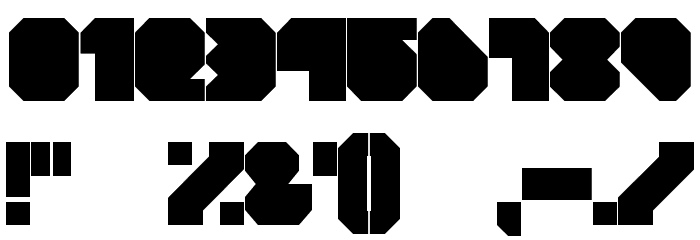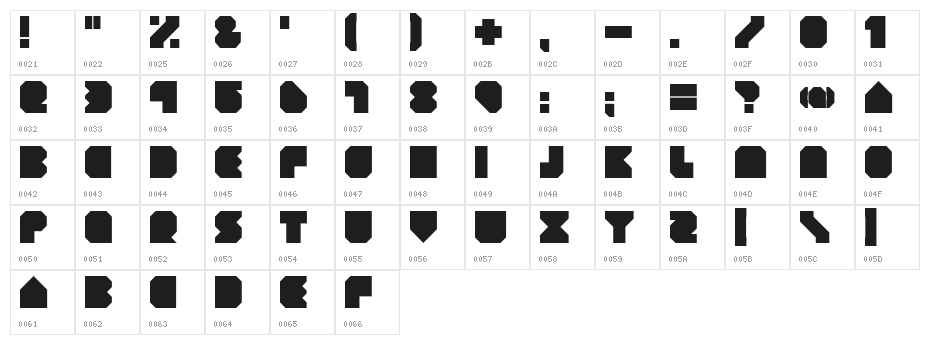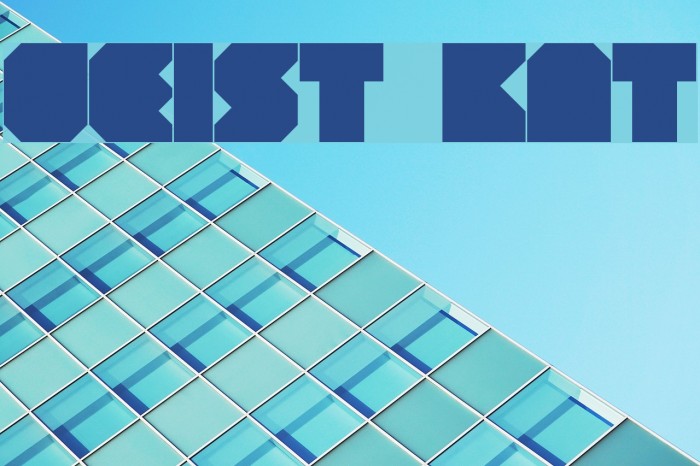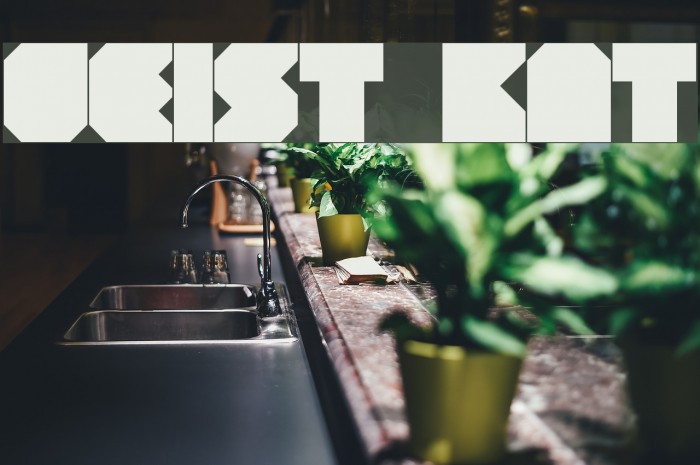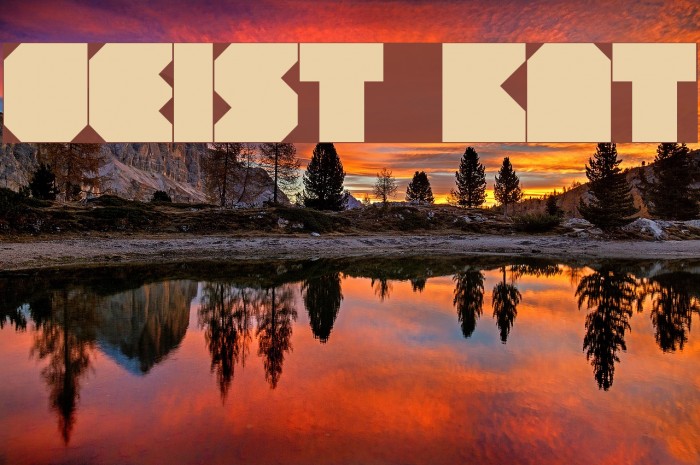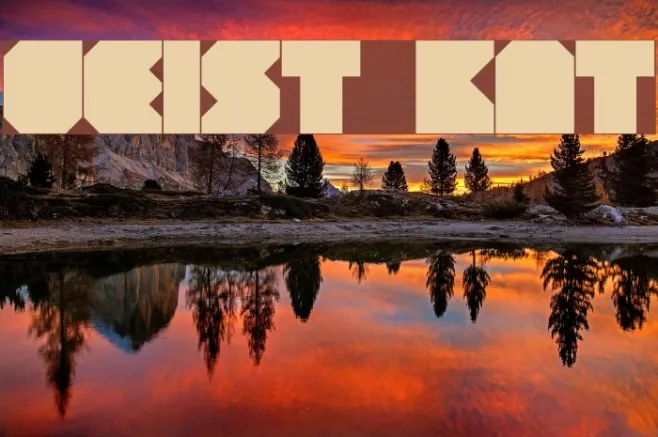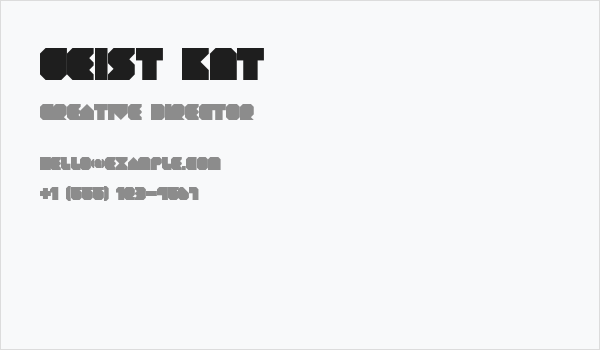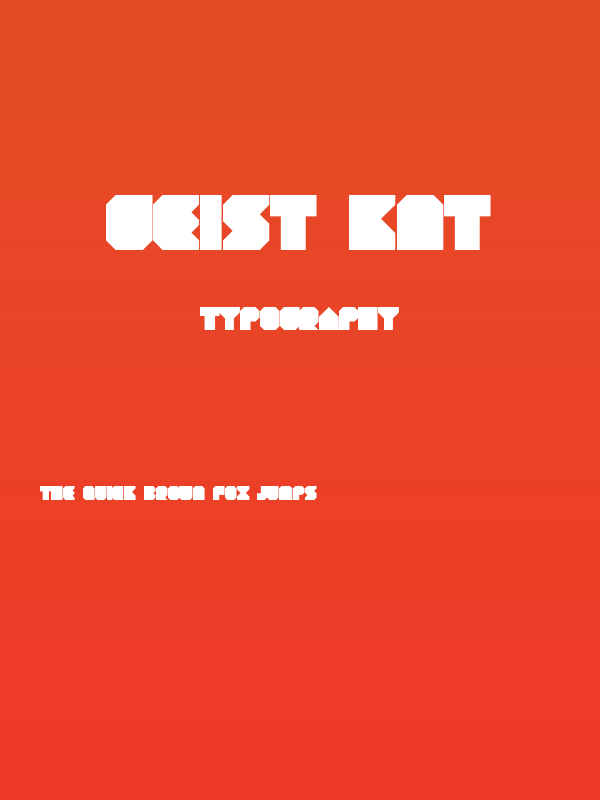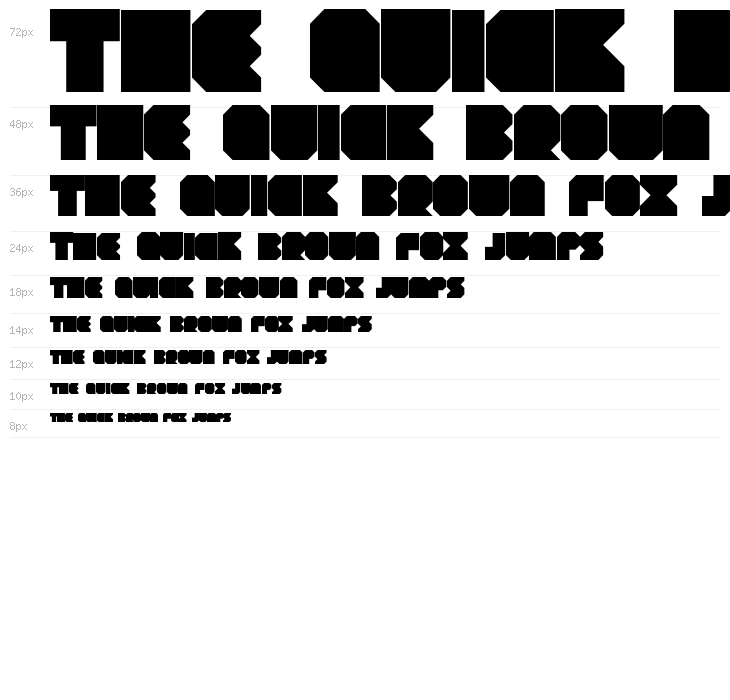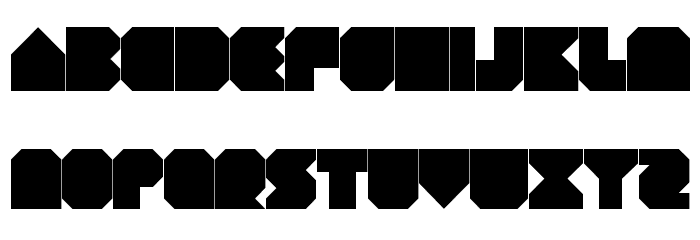
GEIST KNT Font
GEIST KNT Description
This font features a bold, geometric design with a distinctly modern and futuristic aesthetic. The characters are constructed with sharp angles and straight lines, creating a blocky and robust appearance. The uniformity in the design gives it a monospaced feel, although it is not strictly monospaced. The uppercase and lowercase letters share a similar structure, maintaining consistency across the alphabet. The numerals and special characters are designed to match the angular style of the letters, ensuring a cohesive look throughout. This font's unique style makes it stand out, ideal for projects that require a strong visual impact.
| Proposed Projects | Ideal for branding, posters, video game graphics, and any project requiring a strong, modern aesthetic. |